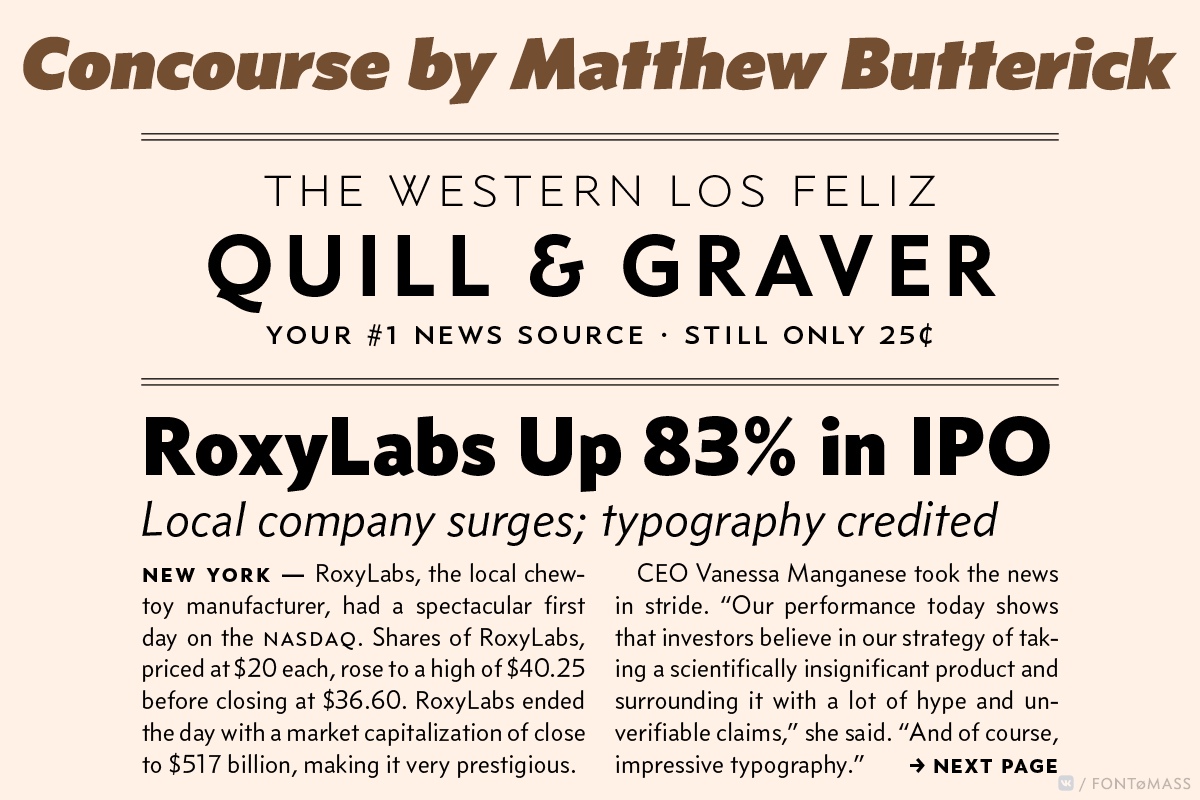
Concourse Font
Concourse Font is perfect for transportation branding, airport signage systems, corporate presentations, modern business communications, professional documentation, transit authority materials, urban planning projects, architectural presentations, and contemporary institutional branding.
What makes Concourse Font exciting is its exceptional balance of functionality and elegance that embodies the efficient beauty of modern transportation hubs and urban infrastructure. The font features clean, highly legible letterforms with optimized spacing that ensures excellent readability in busy environments and fast-paced situations. Its sophisticated design philosophy reflects the precision and reliability required for transportation systems, making it perfect for organizations that need to communicate clarity, efficiency, and professional competence while maintaining the visual appeal necessary for modern urban environments.
Concourse Font family includes comprehensive weights ranging from Thin to Black, typically featuring Light, Regular, Medium, Bold, and Heavy variations with corresponding italic styles. The family often includes condensed versions optimized for space-constrained applications like signage, providing designers with complete flexibility for creating sophisticated wayfinding systems and professional communication materials that perform excellently in high-traffic environments.